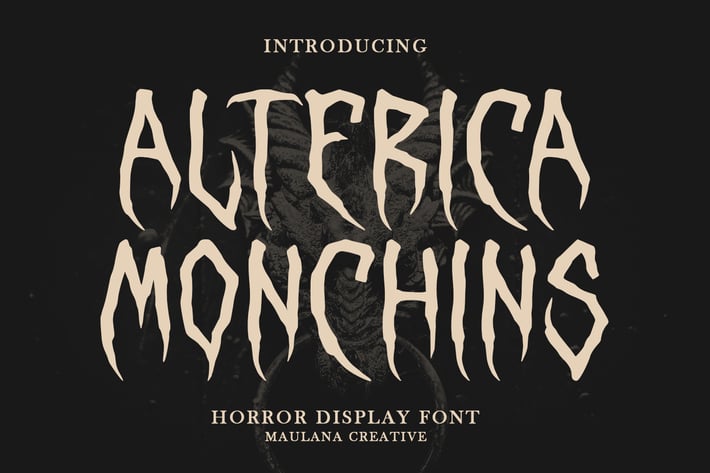
Alterica Monchins Horror Display Font
Alterica Monchins horror display font. Bold stroke, fun character with a bit of ligatures and alternates. To give you an extra creative work. Alterica Monchins horror display font support multilingual more than 100+ language. This font is good for logo design, Social media, Movie Titles, Books Titles, a short text even a long text letter and good for your secondary text font with script or serif. Make a stunning work with Alterica Monchins horror display font.